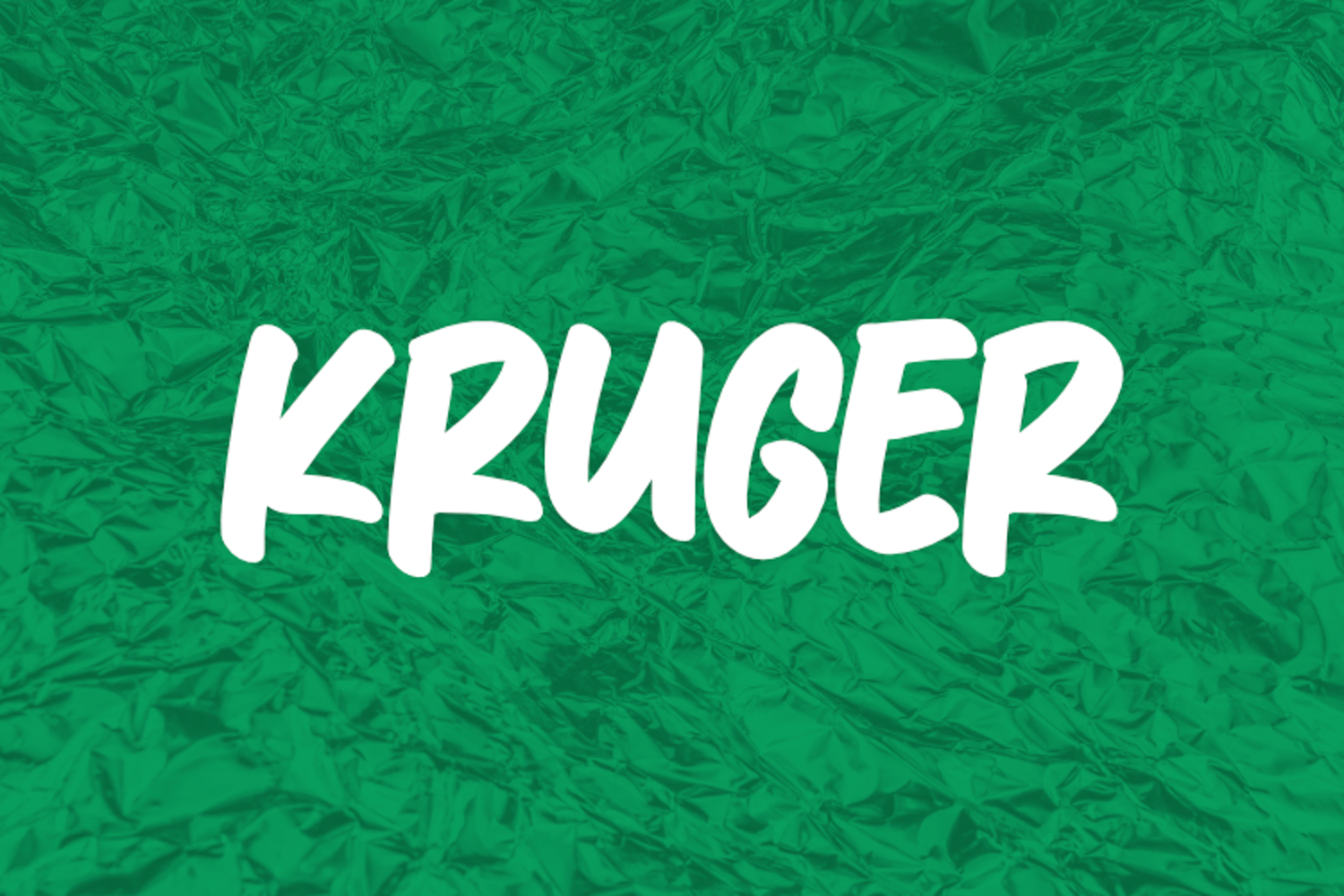
Kruger
Kruger is a modern and elegant typeface designed for flexibility and excellent readability across a wide range of media. With its .otf (OpenType Font) file format, this font offers superior cross-platform compatibility, making it an ideal choice for all design software and office applications, including Adobe Creative Suite, Microsoft Office, and other design software.